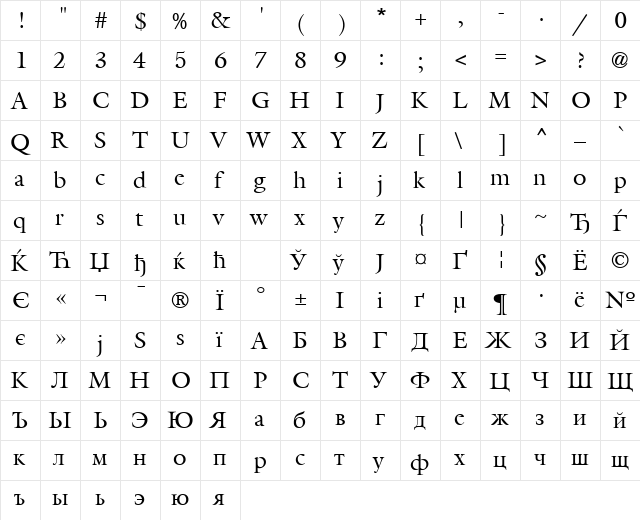
AGGalleon Roman
Design Context for AGGalleon Typeface
AGGalleon takes a measured approach to typography — its balanced proportions and neutral character make it a reliable workhorse for both digital and print work.